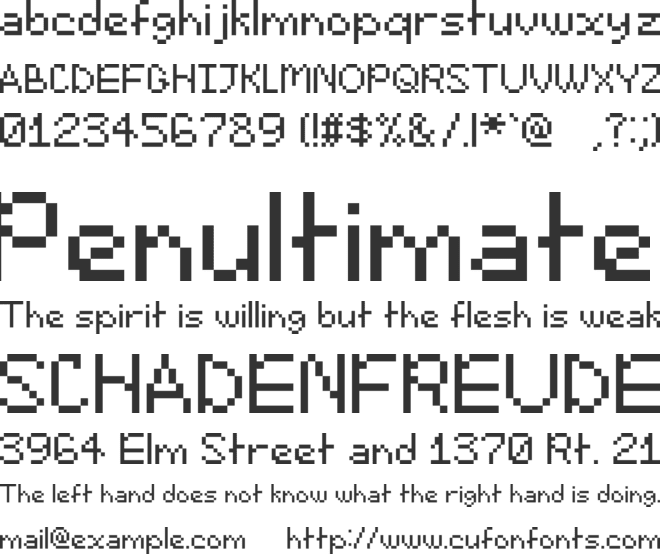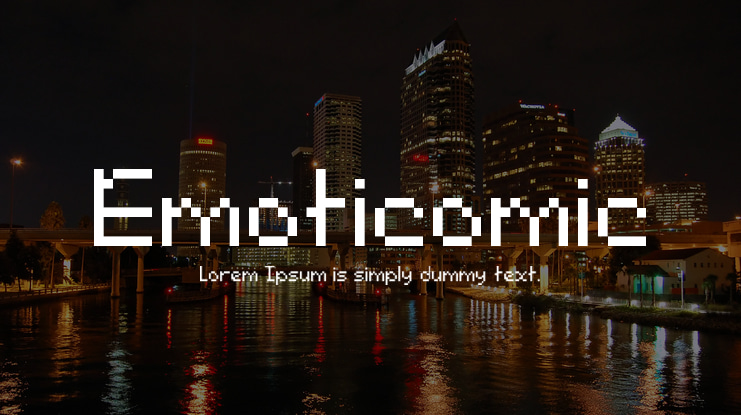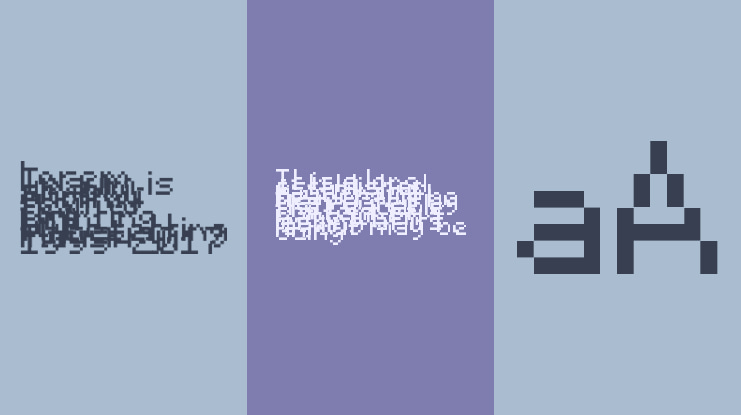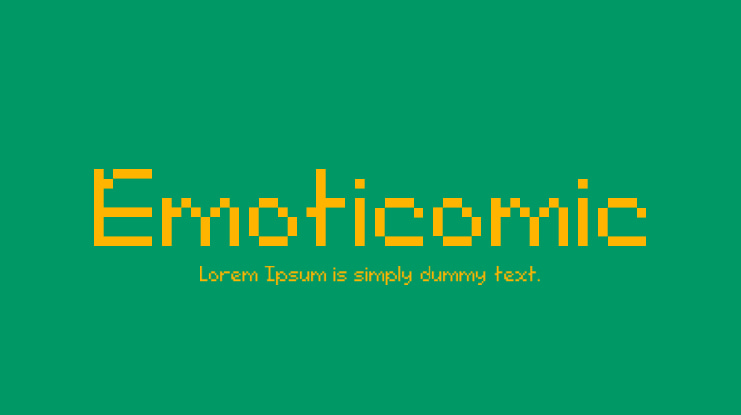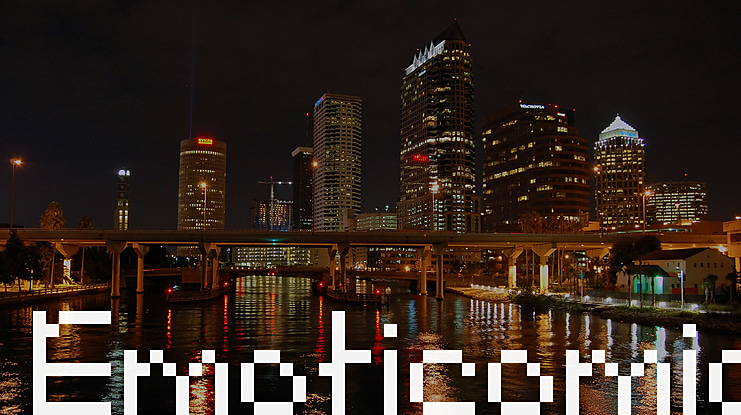
Emoticomic Font
A bitmap-font created to replicate the look of "hand-lettering" which is popular in webcomics. Designed for optimal readability as smaller sizes, unlike traditional fonts which can use quality when rendered at small points. Sized specifically for emoticomics (a/k/a smiley comics) and other smaller pixel-art pieces. If you need a larger font for your project, check out my Sprite Comic font.
Michelle Lehmann (a/k/a Mirz123)